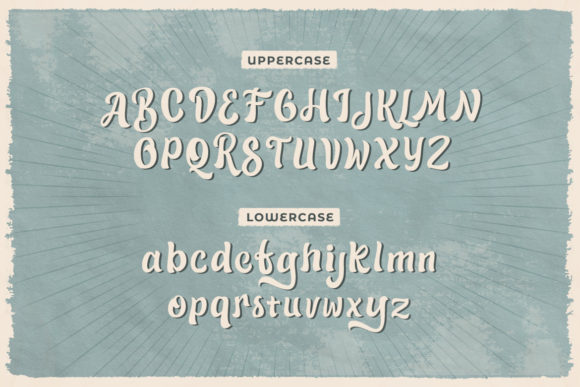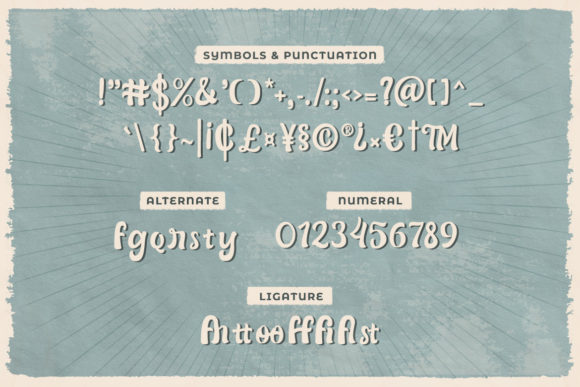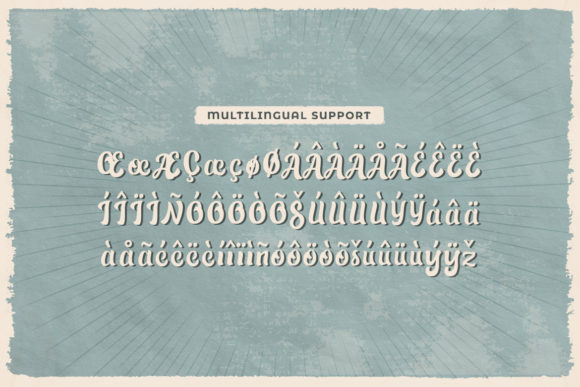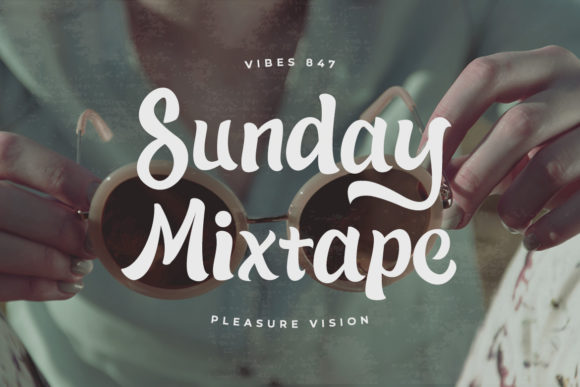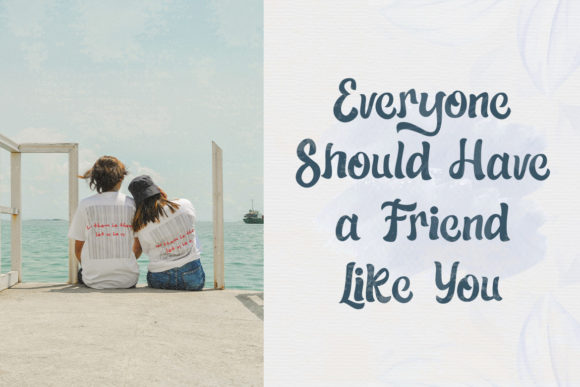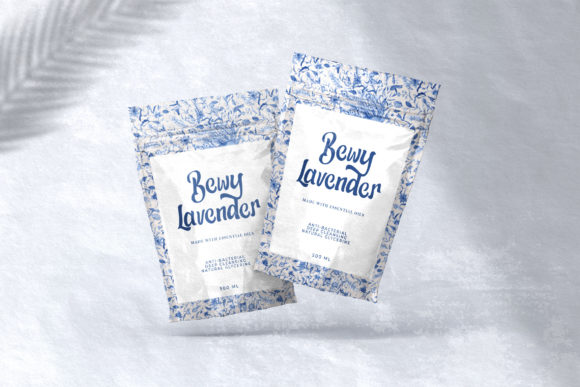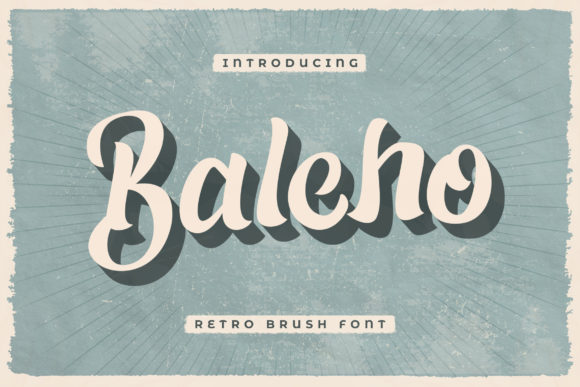
Baleho Font: Elevate Your Designs with a Retro Touch
In the world of typography, fonts play a crucial role in conveying the tone and personality of a design. For designers and crafters looking to add a touch of nostalgia to their work, the Baleho font is an excellent choice. This gorgeous and bold display font is crafted to give your headlines and logotype projects a retro flair that’s sure to turn heads.
The Characteristics of Baleho Font
Baleho is a strong, confident, and dynamic font that’s perfect for designers who want to make a statement. Its bold and eye-catching design reads well in large sizes, making it ideal for headlines, titles, and logotypes. The font’s retro touch is reminiscent of classic typography, evoking a sense of nostalgia and timelessness.
What Makes Baleho Font Stand Out
So, what sets Baleho apart from other fonts? Here are a few key features that make it a standout choice:
- Bold and Dynamic Design: Baleho’s bold design makes it perfect for headlines and titles that need to grab attention.
- Retro Touch: The font’s retro flair adds a touch of nostalgia to your designs, making them stand out from the crowd.
- Strong and Confident: Baleho exudes confidence and strength, making it perfect for designs that need to convey a sense of authority.
- Versatile: The font is versatile and can be used in a variety of design projects, from branding and advertising to packaging and signage.
Uses of Baleho Font
Baleho font is perfect for a wide range of design projects, including:
- Headlines and Titles: Use Baleho to create bold and eye-catching headlines and titles that grab attention.
- Logotypes and Branding: The font’s retro touch makes it perfect for logotypes and branding projects that need to convey a sense of nostalgia and timelessness.
- Advertising and Marketing: Baleho’s bold design makes it perfect for advertising and marketing materials, such as billboards, posters, and flyers.
- Packaging and Signage: The font’s versatility makes it suitable for packaging and signage projects, such as product labels and store signs.
Tips for Using Baleho Font
Here are a few tips for getting the most out of Baleho font:
- Use it in Large Sizes: Baleho font reads best in large sizes, so use it for headlines and titles that need to make a statement.
- Experiment with Colors: The font’s bold design makes it perfect for experimenting with different colors and gradients.
- Pair it with Other Fonts: Baleho can be paired with other fonts to create a unique and interesting design.
In conclusion, Baleho font is a gorgeous and bold display font that’s perfect for designers and crafters looking to add a retro touch to their work. Its strong, confident, and dynamic design makes it ideal for headlines, logotypes, and other design projects that need to make a statement. With its versatility and range of uses, Baleho is a font that’s sure to become a staple in any designer’s toolkit.